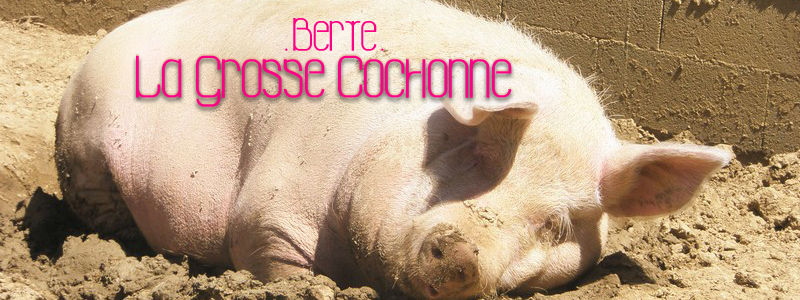
La Grosse Cochonne, a captivating display font crafted by Maelle.K and Thomas Boucherie, exudes a bold and unconventional charm. This condensed typeface boasts striking, angular letterforms that command attention, evoking a sense of rugged elegance and uncompromising style. The robust, geometric shapes and distinct terminals lend the font a unique, almost industrial-inspired aesthetic, making it a standout choice for design projects seeking to make a bold statement.
This font's versatility allows it to thrive in a wide range of applications, from eye-catching headlines and impactful branding to edgy, avant-garde editorial layouts. Its condensed width makes it an excellent option for projects with limited space, while the font's distinctive personality can elevate packaging, posters, and other design elements that require a strong, attention-grabbing presence.
Maelle.K | T.B
La Grosse Cochonne